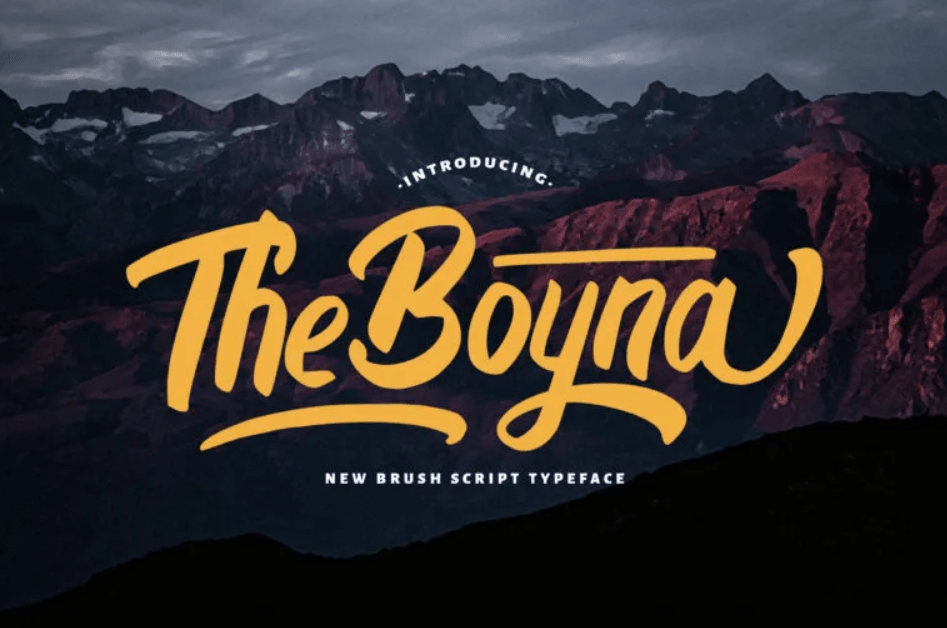
25+ Modern Fonts Fashion Bold that Steals Attention
Fashion should be recent and expressive. Else, the audience would not bat an eye; and your clothing brand would be drowning in the sea of competition. Fret not, since we have selected some modern fonts fashion bold to help you express the business’ identity properly as well as stay trendy and confident.
26 Modern Fonts Fashion Bold Especially for You
Appearance is essential in fashion, and fonts can not only improve your clothing but to establish your identity and convey your message. So, here is a list of some fonts that can help you steal attention.
1. Boyna – Bold Script Font
Boyna’s cursive strokes strike you with elegance, and its swashes will remind you of calligraphy’s graceful lines. Yet at the same time, the boldness creates a more casual and playful look.
2. Akidan Hatory – Bold Script Font
Akidan Hatory’s additional lines and some letterings are gorgeously decorative. The script font is exceptionally unique and summery.
3. Gisselle – Bold Script Font
The simplicity of the Giselle font is as mesmerizing as the blue ocean. It is one of the modern fonts fashion bold that gives a refreshing vibe to your designs.
4. Vaizonlly – Bold Script Font
Vaizonlly’s brush letters are as graceful as smooth fabric swaying to the evening breeze. It is elegant and fearless.
5. Bethany Kibang – Bold Script Font
The constantly dense contrast of the Bethany Kibang font is undeniably eye-catching and fitting to assert dominance.
6. Rattoney – Bold Script Font
Rattoney’s retro-styled letters are versatile and suitable to liven up the old-fashioned yet everlasting vibe.
7. Rosalinda – Bold Script Font
Like its name, Rosalinda’s spontaneous yet artistic letter strokes are like beautiful roses, sensual yet royal.
8. Biyonella – Retro Bold Script Font
Biyonella’s lettering are modern and hand-written. Moreover, the heavyweight is suitable for establishing the position in the visual hierarchy.
9. Ansagia – Bold Script Font
Ansagia’s lettering resembles writings with markers, as one of the modern fonts fashion bold displays aesthetic swashes, tails and ears.
10. Cameliya – Bold Script Font
Just like Camelia’s flowers, Cameliya shows admirable swirly swashes that can represent your deep attachment for the audience.
11. Antique – Bold Script Font
As antique as porcelain pieces, Antique’s letterform remind one of the good old days. Yet, the decorative descenders on some letters give a modern touch to the font.
12. Lazy Monday – Bold Script Font
Lazy Monday font brightens up the beginning of your week with full access to all special characters with their swashes and glyphs, for you to design with ease.
13. Andy Tusvah – Bold Script Font
Andy Tusvah is another wondrous fusion between the classic and the modern, with its unique and almost-calligraphic tails.
14. Jarida – Bold Script Font
Jarida is a modern script font that still adopts the characteristics of its predecessor but with some bold twists of contemporary influence.
15. Haredang – Bold Script Font
Haredang is one of the modern fonts fashion bold that should please your audience with its friendly-looking letters yet self-assured, like the traditional script font.
16. Anjelica Script – Bold Script Font
Just like its name, Angelica gives an angelic impression as if an angel gives a piece of delightful news through the font’s graceful and flowy strokes.
17. Anasite Malela – Bold Script Font
With its eye-catching embellishment, Anasite Malela is the font that exudes elegance and friendliness.
18. Anhattan – Retro Bold Script Font
Anhattan’s thick retro appearance, with balance contrast depicting modernity makes it perfect for vintage designs.
19. Oaklash – Retro Bold Script Font
Oaklah gives out a colourful and bubbly vibe with its decorative branches, lengthy and decorative tails, and interesting diacritical marks.
20. Piemonte – Casual Sans Serif Font
Derived from a place in Italy, Piemonte represents the luxurious and addicting taste of high-quality wine through its simple descenders yet some grotesque sans serif style.
21. Beautiful Vibes – Bold Script Vintage Retro Font
Beautiful Vibes is one of the modern fonts fashion bold that gives a sweet impression with its lovely rounded letterforms and underlines.
22. Brogads – Bold Script Retro Font
Broagads’s uniqueness is the extraordinary tails and ascenders. They emphasise the font’s trendy and sporty vibes.
23. Mentari – Bold Script Font
The dramatic  alternates of Mentari’s letters perfectly blend with its standard cursive letters, making it look bold yet friendly.
24. Azingdar – Retro Bold Script Font
Azingdar presents groovy lines with bold stroke contrast, making the font appear as authentic as it could be.
25. Madena Parlling – Bold Script Font
One look at Madena Parlling will remind you of the vintage vibe of the classic script but the loop and rounded serif hints a touch of minimalist modern.
26. Phoenix Ayash – Bold Serif Font
As majestic as when a phoenix spreads its wings, Phoenix Ayash has a sort of divine look with its flowy alternate yet geometric stem strokes.